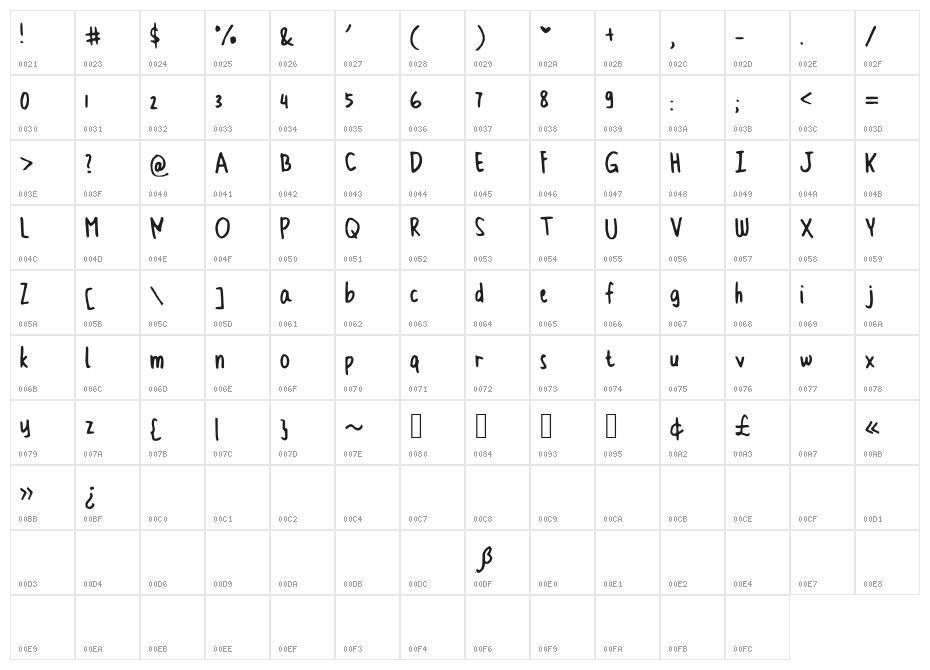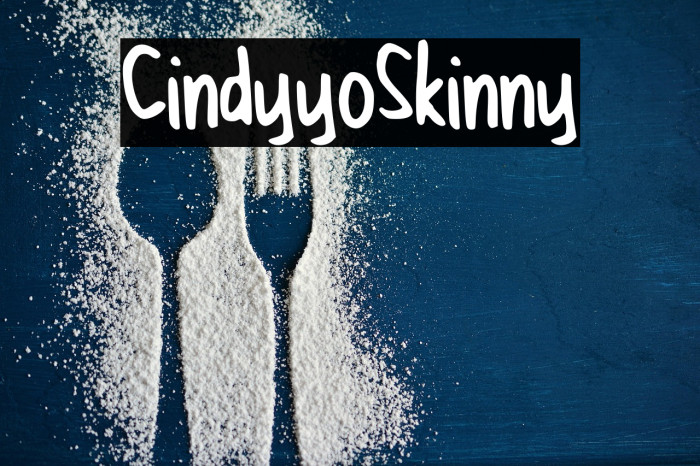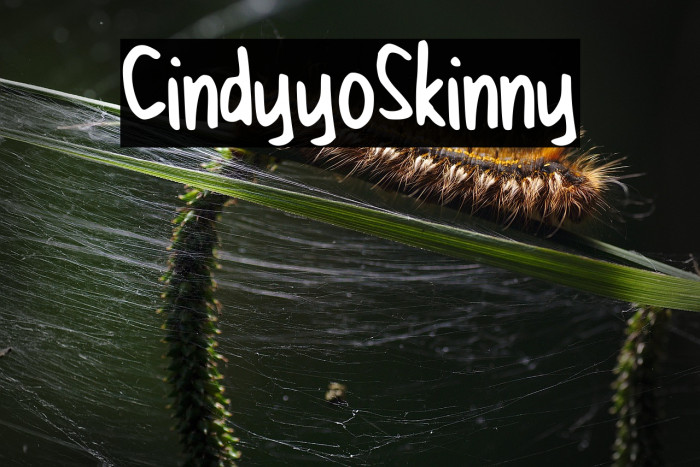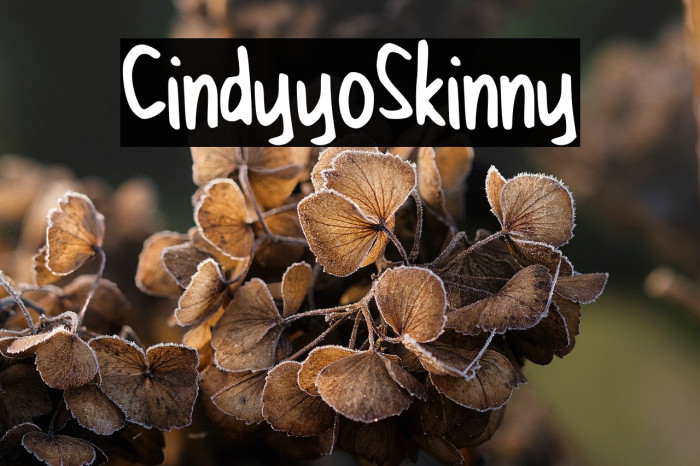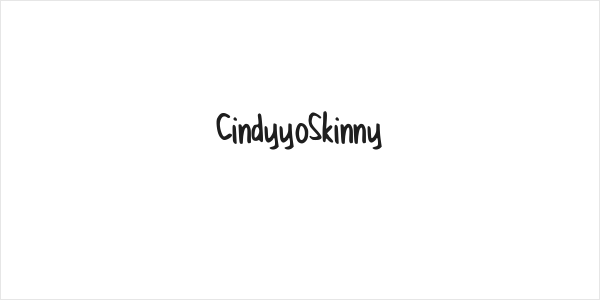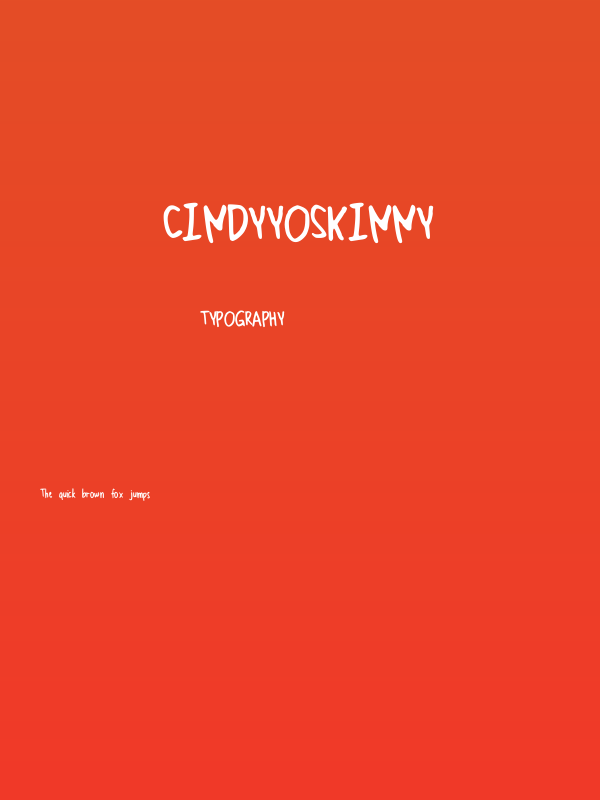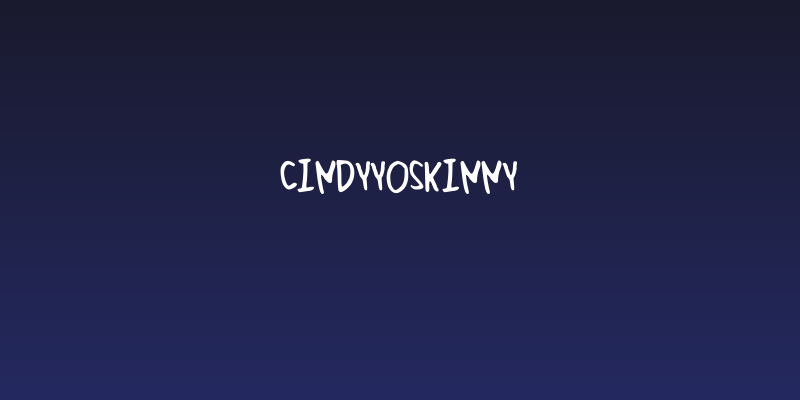
CindyyoSkinny Font
CindyyoSkinny Description
A playful, handwritten font with a casual and informal style, featuring rounded edges and a slightly irregular baseline.
| Use Case | Headlines, Informal text, Creative projects. |
| Proposed Projects | Greeting cards, children's books, casual invitations. |